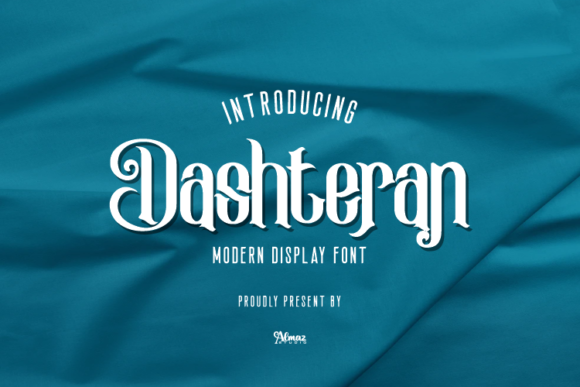
Dashteran is a modern and distinct display font. It is PUA encoded which means you can access all of the glyphs and swashes with ease! Add it confidently to your favorite creations and let yourself be amazed by the outcome generated.